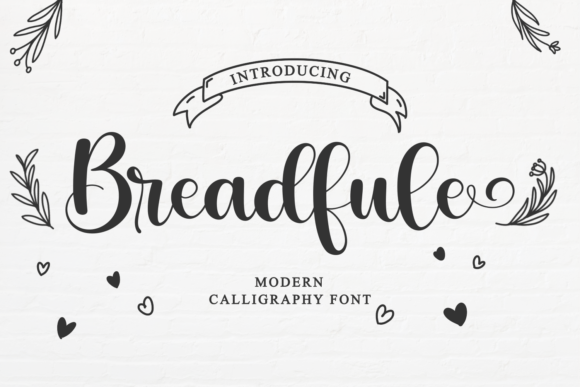
Introducing Breadfule: Elevate Your Designs with Modern Calligraphy
Have you ever been in the middle of a design project, and suddenly, you’re stuck on finding the perfect font? I recall a recent experience where a client requested a logo that exuded elegance and modernity. After scouring through numerous font libraries, I stumbled upon Breadfule, a modern calligraphy font that instantly caught my attention. Its bold, polished strokes and perfect blend of modern style and calligraphic grace made it an ideal choice for the project.
A Personal Review of Breadfule
As a designer, I’m always on the lookout for fonts that can elevate my work and make it stand out. Here’s my honest review of Breadfule:
- ✨ Modern Calligraphic Style: Breadfule boasts a fresh, contemporary look that’s perfect for designs that require a touch of sophistication.
- ✅ PUA Encoding: The font is PUA encoded, making it easy to access all glyphs and swashes. This feature is a game-changer for designers who want to experiment with different styles and flourishes.
- 💫 Versatility: Breadfule can be used for a wide range of design projects, from logos and labels to invitations and website headers.
- 🎨 High-Quality Design: The font is meticulously crafted, with bold, polished strokes that give it a premium feel.
While Breadfule is an excellent font, there are a few minor quirks to be aware of:
- ⚠️ Learning Curve: If you’re new to using OpenType features or glyphs, it might take some time to get familiar with Breadfule’s capabilities.
- 🤔 Pairing with Other Fonts: As with any script font, pairing Breadfule with other fonts can be a bit tricky. You may need to experiment with different combinations to find the perfect match.
The Story Behind Breadfule
Breadfule was designed by a team of skilled typographers who aimed to create a modern calligraphy font that would meet the needs of contemporary designers. The font’s design is inspired by traditional calligraphy, with a fresh, modern twist. The result is a font that’s both elegant and versatile, perfect for a wide range of design projects.
Q: What is PUA encoding, and how does it benefit designers?
A: PUA (Private Use Area) encoding is a standard for font encoding that allows designers to access a wide range of glyphs and swashes. This feature is particularly useful for designers who want to experiment with different styles and flourishes.